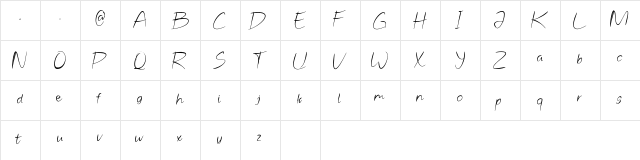
Sinaloa Cruz Regular
Design Context for Sinaloa Cruz Typeface
Sinaloa Cruz is a composed and adaptable typeface that performs quietly and consistently across a wide range of design contexts.
Pro Tip: Use Sinaloa Cruz in both headline and body roles to test its range before committing to a single application.